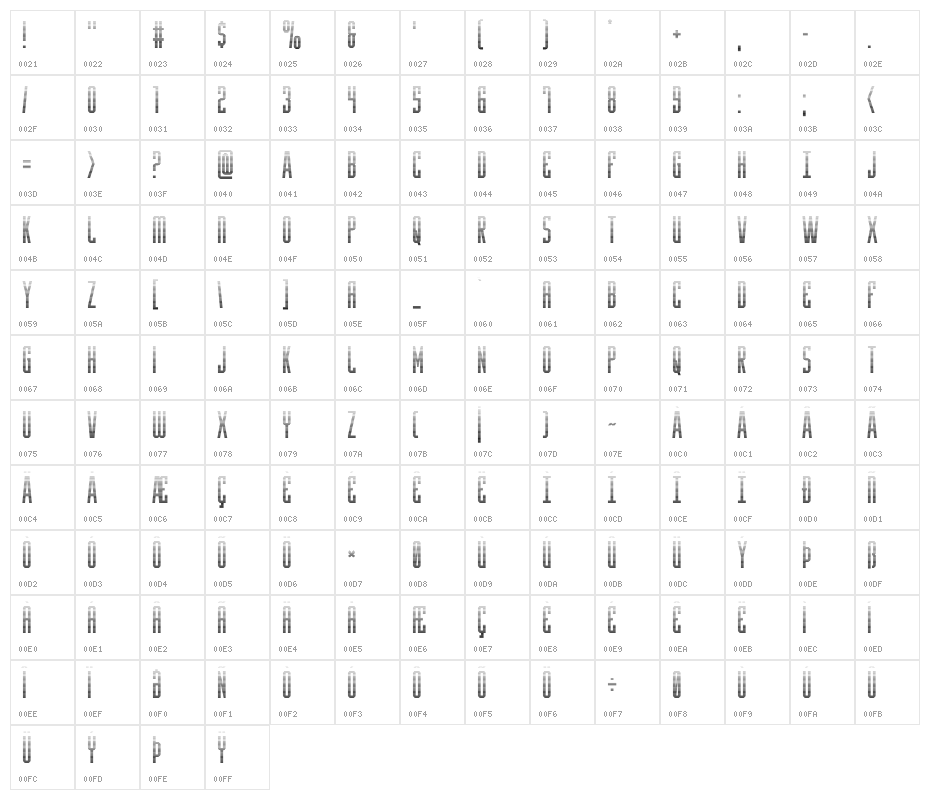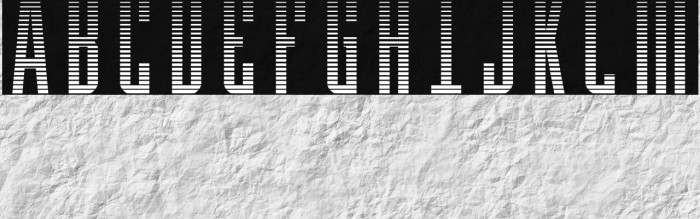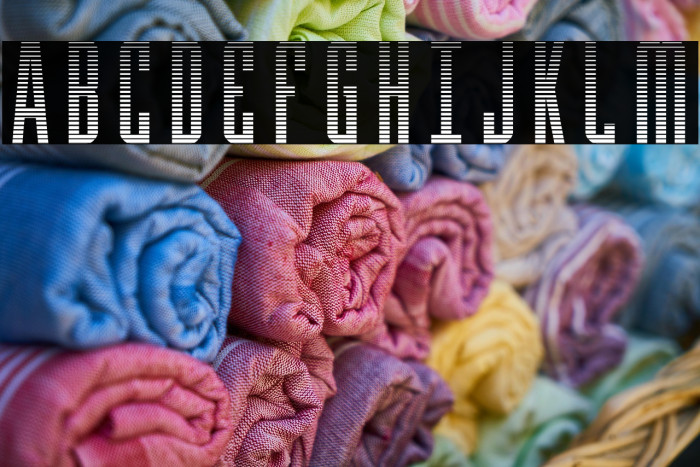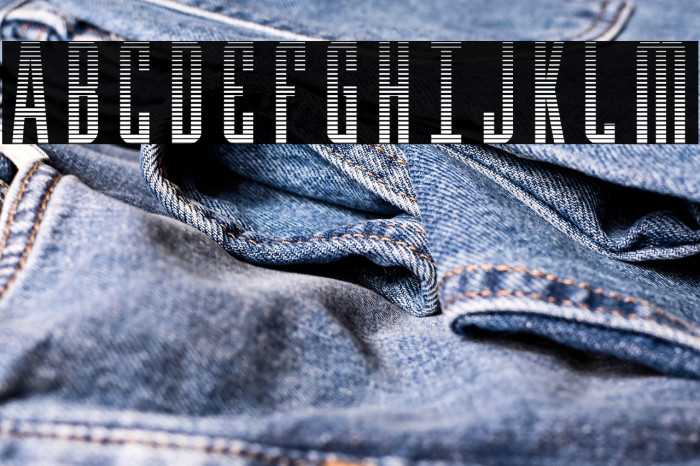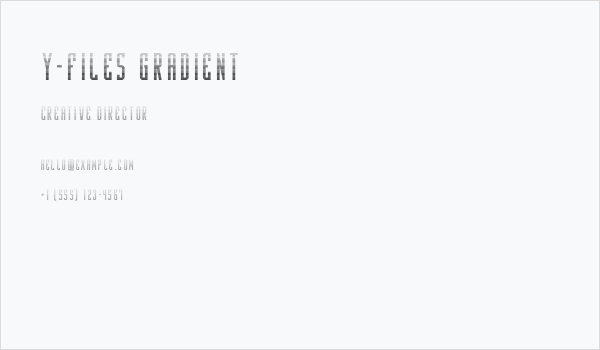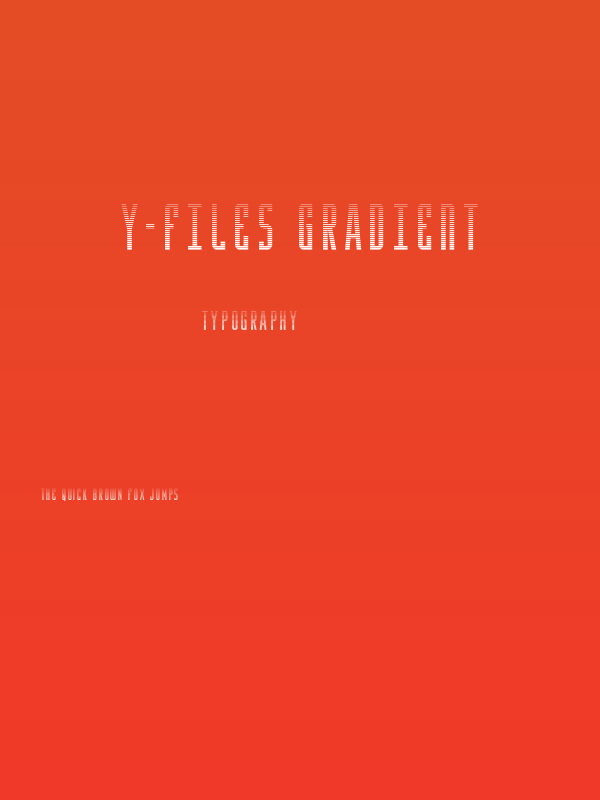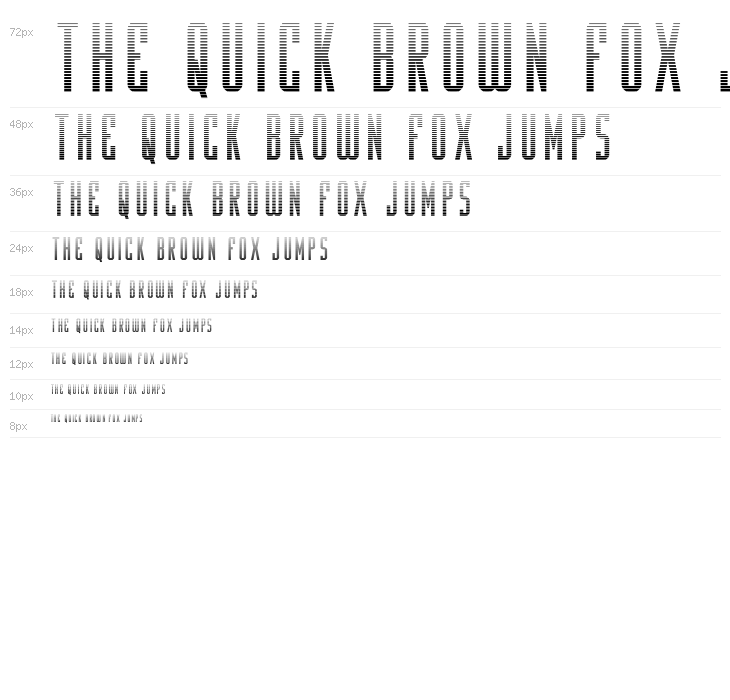
Y-Files Gradient Font
Y-Files Gradient Description
This font features a unique design with a gradient effect created by horizontal lines that vary in thickness. The uppercase and lowercase letters, as well as numbers and special characters, are all constructed with this distinct pattern, giving the font a modern and futuristic appearance. The characters are bold and have a strong presence, making them suitable for attention-grabbing designs. The spacing between the characters is normal, allowing for readability while maintaining the striking visual effect. The font's style is decorative, making it ideal for creative projects that require a standout typographic element.
| Proposed Projects | Ideal for posters, album covers, branding, and any design needing a modern, eye-catching font. |